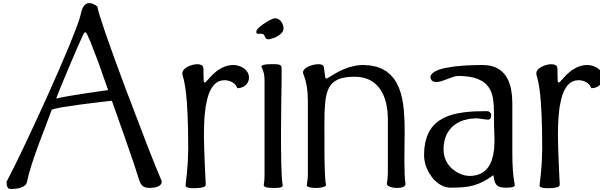
Arinar
Arinar is a well modulated, rounded, humanist sans serif font family based on Brinar. A distant ancestor the basic letterforms is Minister (a Dutch bible font of the 19th century) through my first font, Diaconia. There are many OpenType features...
Arinar
Arinar Bold Italic
Arinar Bold
Arinar Italic